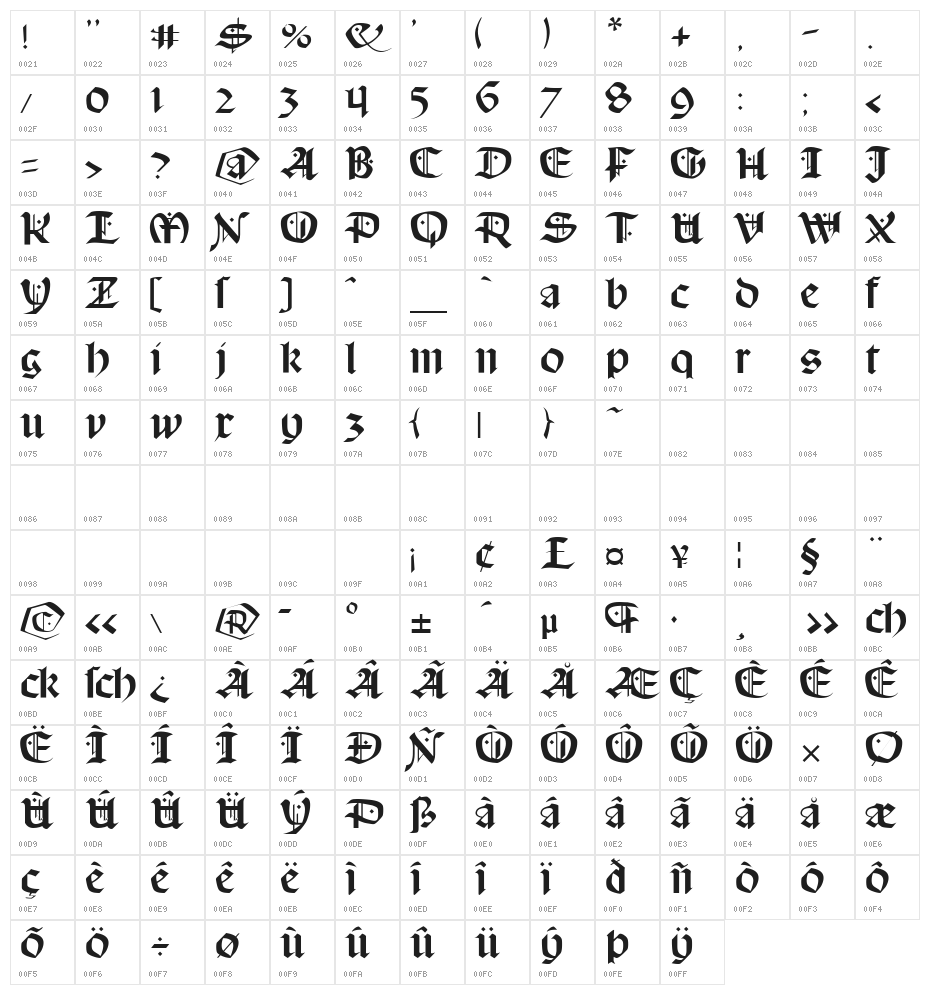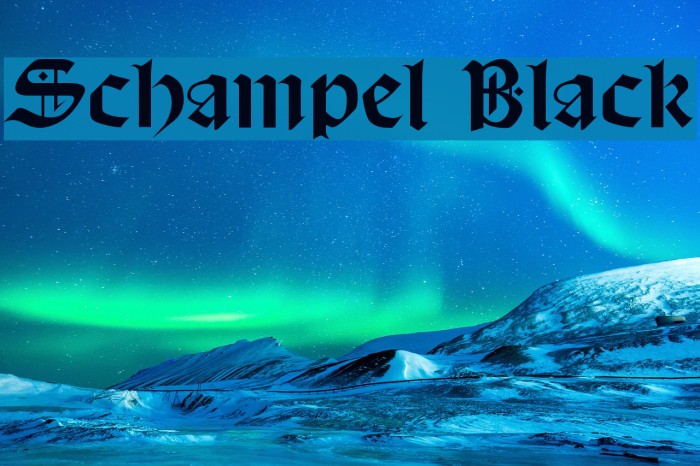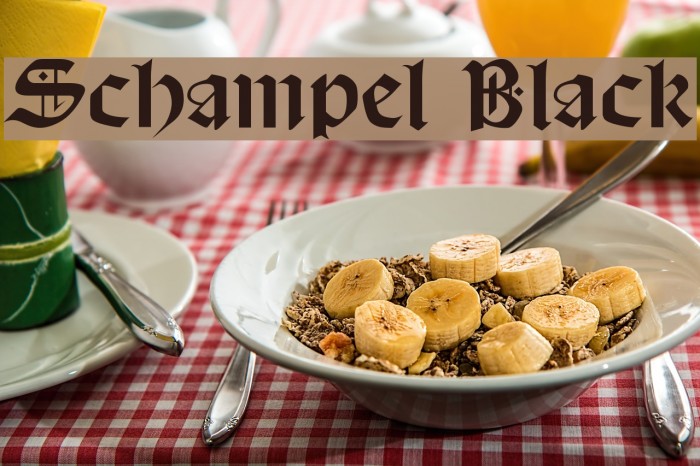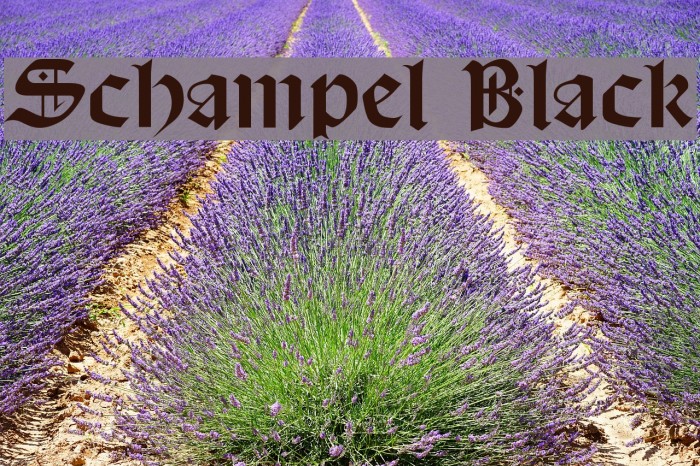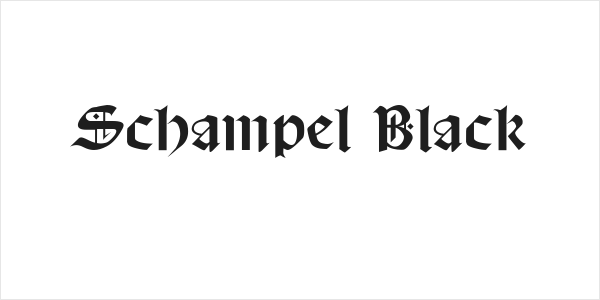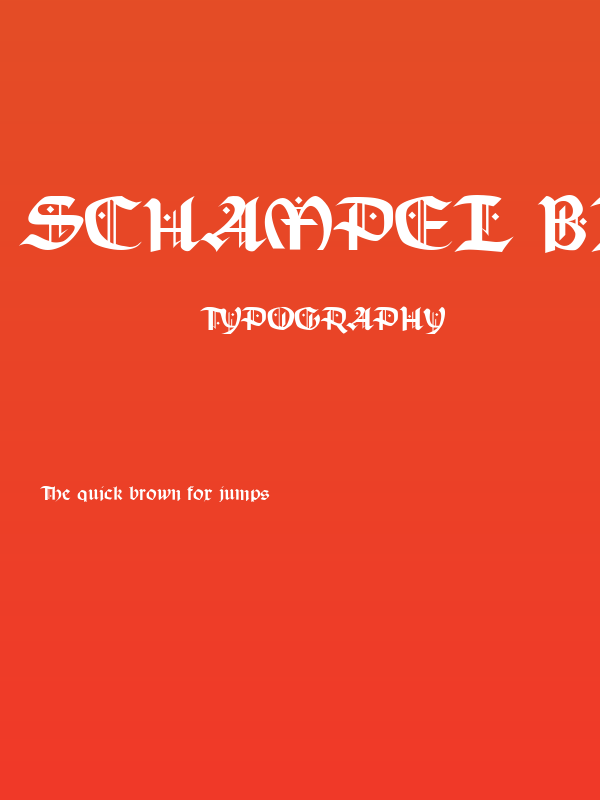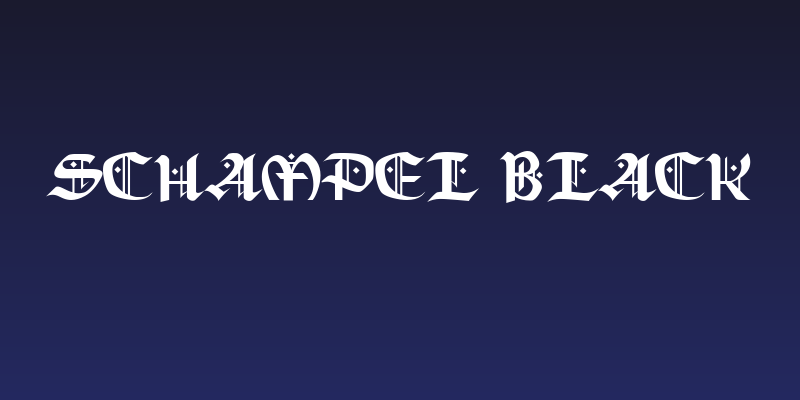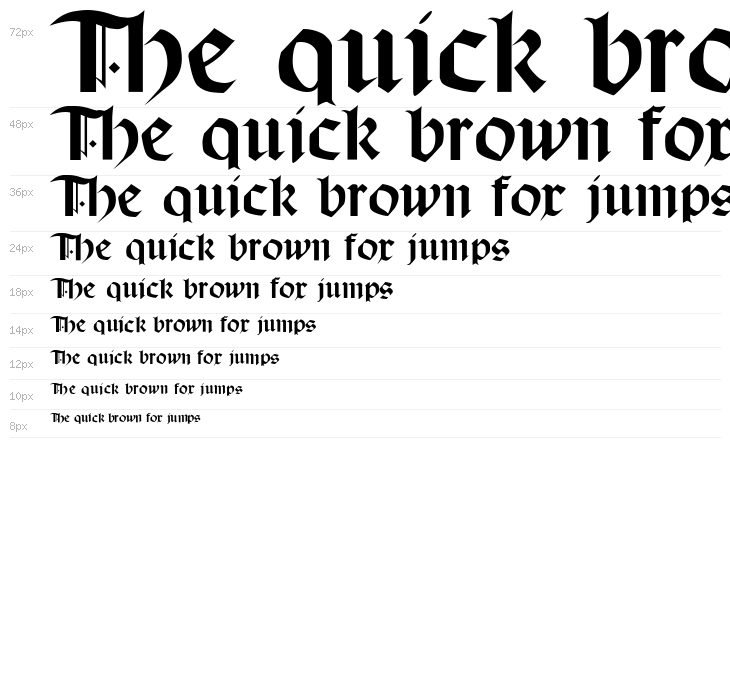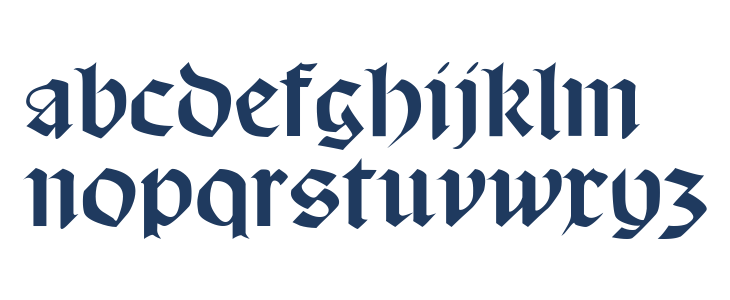
Schampel Black Font
Schampel Black Description
This font features a bold and dramatic style with intricate details reminiscent of traditional Blackletter typefaces. The uppercase letters are ornate, with sharp, angular lines and decorative elements that give a sense of historical elegance. The lowercase letters maintain a similar aesthetic, with a slightly more flowing and connected appearance, yet still retaining the boldness and complexity of the uppercase. The numerals are equally stylized, with unique curves and angles that align with the overall theme. Special characters are designed with the same attention to detail, ensuring consistency across the font. This typeface exudes a sense of tradition and authority, making it suitable for projects that require a touch of classic sophistication.
| Use Case | Logos, Headlines, Decorative purposes |
| Proposed Projects | Ideal for use in historical or medieval-themed designs, book covers, certificates, or branding that requires a classic and authoritative look. |